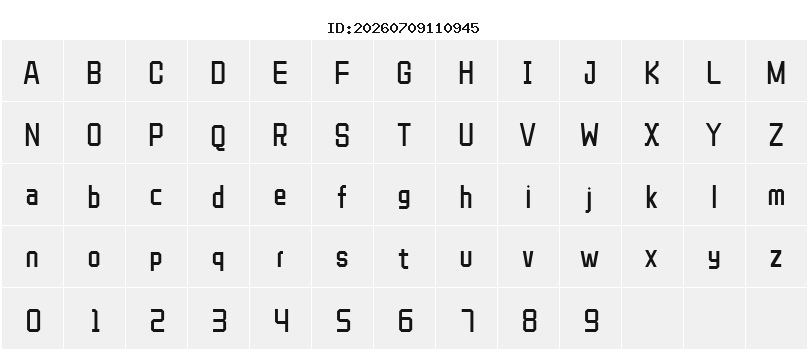
站酷庆科黄油体 Preview
• Font Name: 站酷庆科黄油体
• Font Style: 常规
• Font ID: zcoolqingkehuangyouti-Regular
• Full Font Name: 站酷庆科黄油体常规
• PostScript Name: zcoolqingkehuangyouti-Regular
• Designer: 郑庆科
• Manufacturer: 郑庆科
About 站酷庆科黄油体.ttf
站酷庆科黄油体.ttf is a modern, elegant sans-serif font designed for ultimate readability and visual harmony. Perfect for branding, headlines, web design, and print materials.